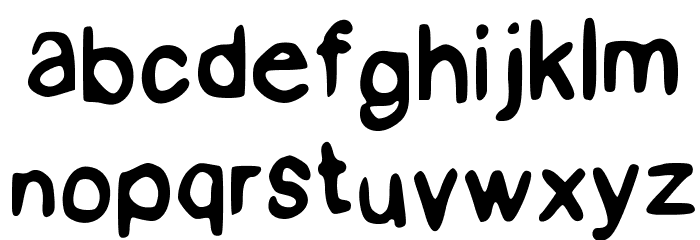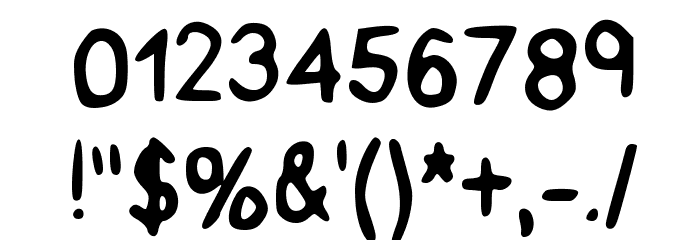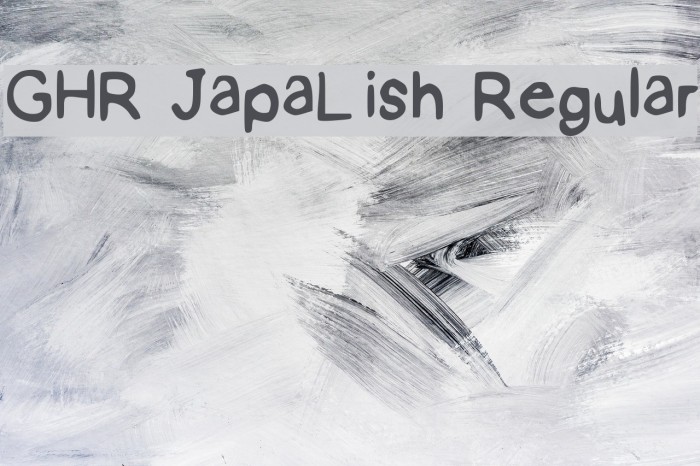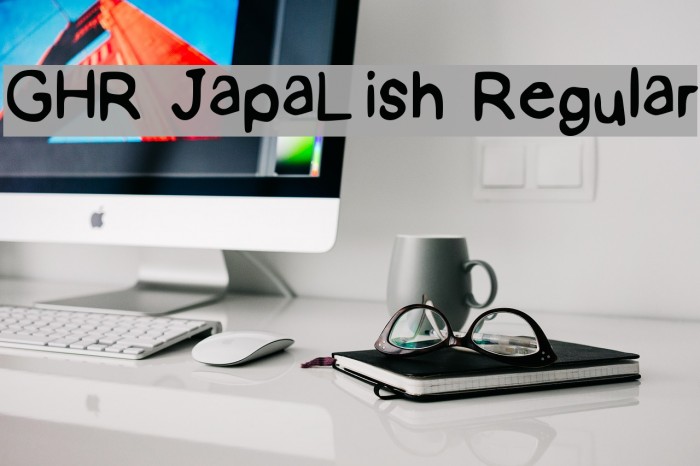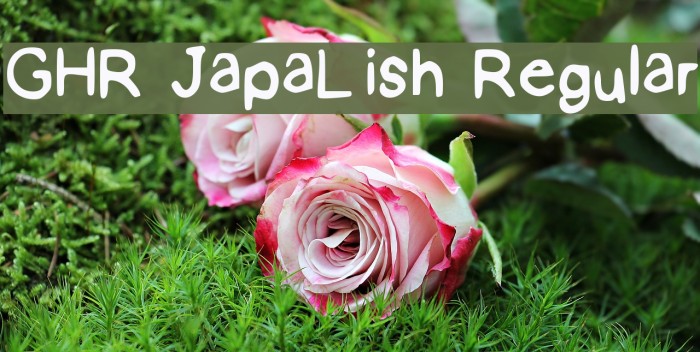
GHR JapaLish Regular Font
This playful and whimsical font features a hand-drawn style with irregular, rounded edges, giving it a casual and friendly appearance. The characters are slightly uneven, adding to the charm and informal feel. The uppercase and lowercase letters maintain a consistent style, with a slight slant that suggests movement and energy. The numerals and special characters are equally expressive, making this font versatile for creative projects. Its unique personality makes it stand out, perfect for designs that require a touch of fun and individuality.
A playful, hand-drawn font with irregular, rounded edges and a whimsical style.
- Proposed Projects: Ideal for children's books, playful branding, casual invitations, and creative posters.